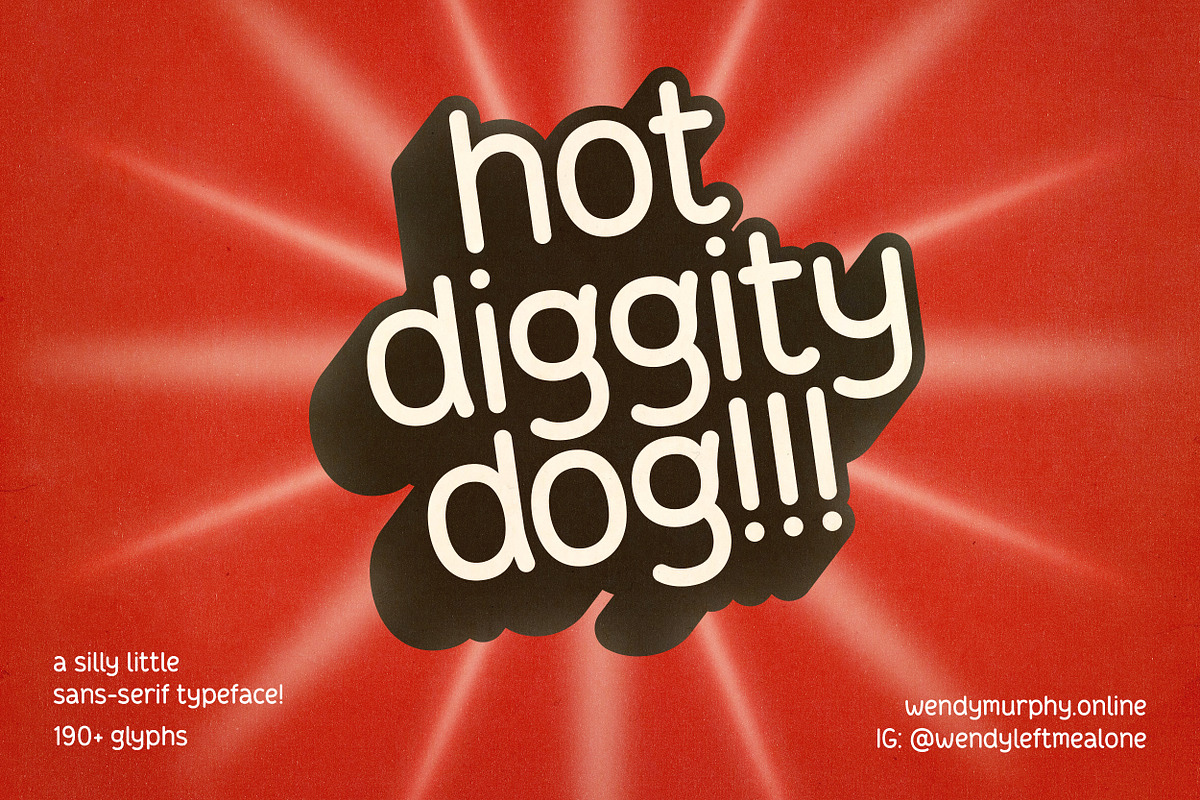
hot diggity dog! | silly sans-serif
Who says sans-serifs can’t be fun? Inspired by food and rubber hose-style animation, hot diggity dog!!! is a typeface that brings playfulness and nostalgia, while maintaining legibility that users expect from typical sans-serif typefaces.
The typeface contains approx. 198 glyphs, including:
- Uppercase letters
- Lowercase letters
- Accent Marks (Uppercase and Lowercase)